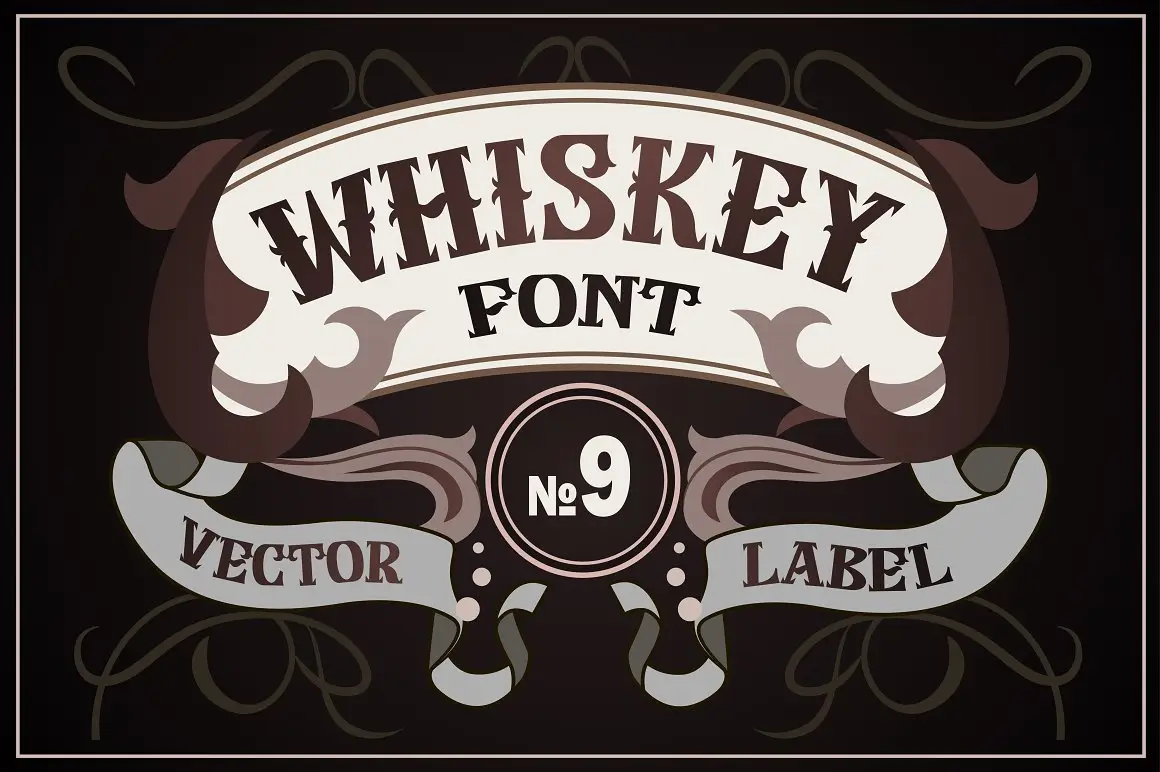
Whiskey Font
The Whiskey Font is a stylish and versatile typeface that captures the essence of classic typography with a modern twist. Perfect for branding, logos, and various design projects, this font brings a unique character to your work.
• Elegant serif design
• Multiple weights for flexibility
Ideal for use in branding projects, packaging, invitations, and any design that requires a touch of elegance. Ensure to pair it with complementary sans-serif fonts for a balanced look.